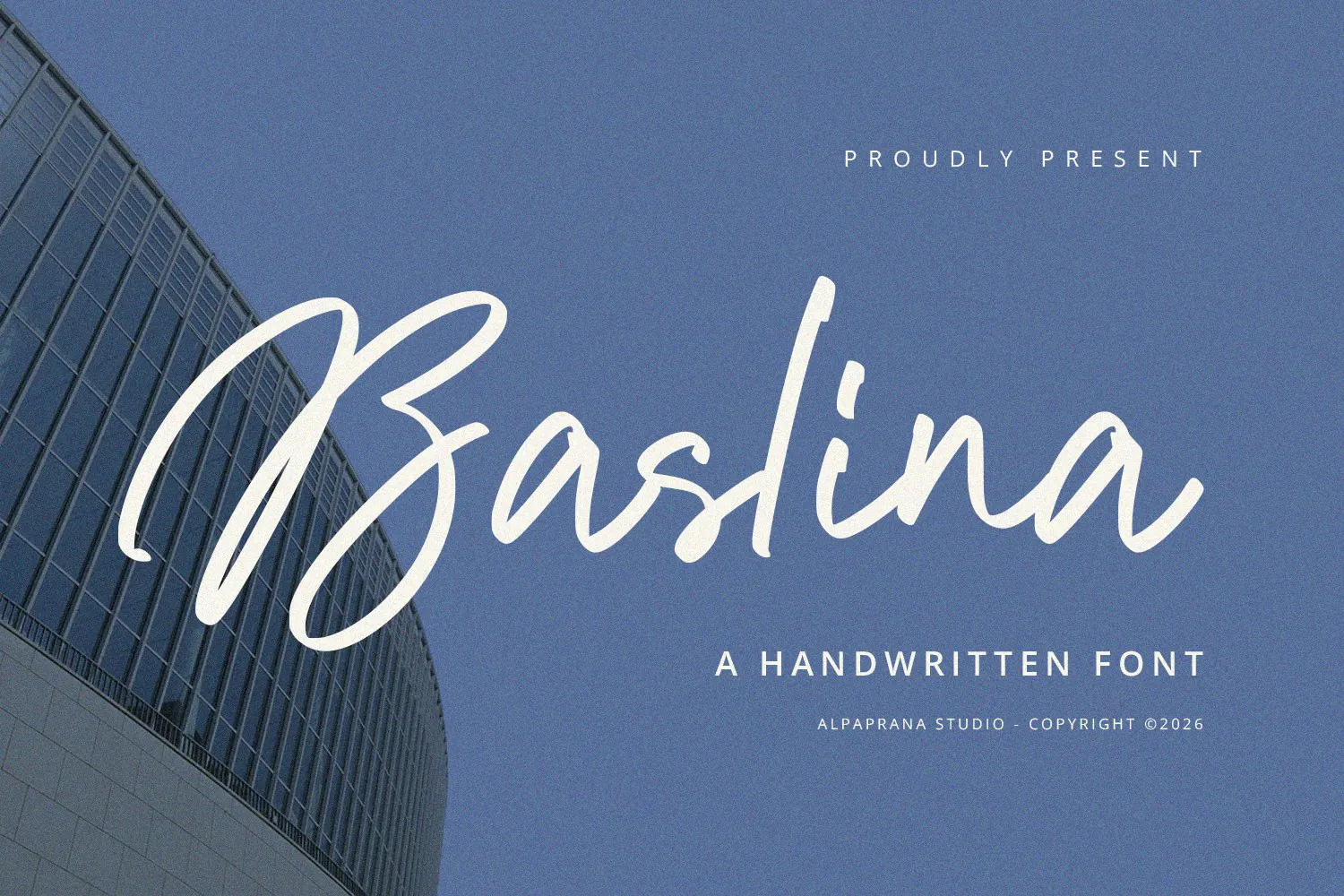
Baslina is a handwritten font with unique and modern feels. It will be perfectly used for Branding, Logo Design, Lettering, Logotype, Clothing, Poster, magazine, packaging, posters, shopping bags, t-shirts, book covers, photography, special events and other design project.